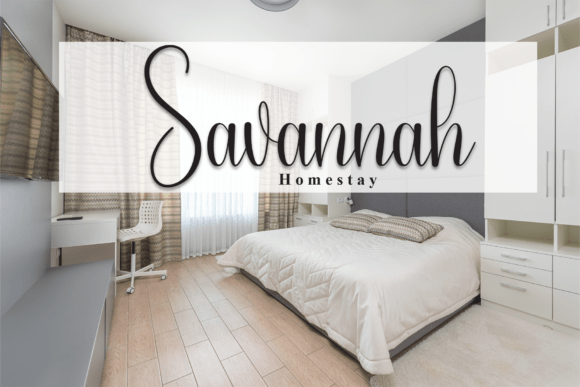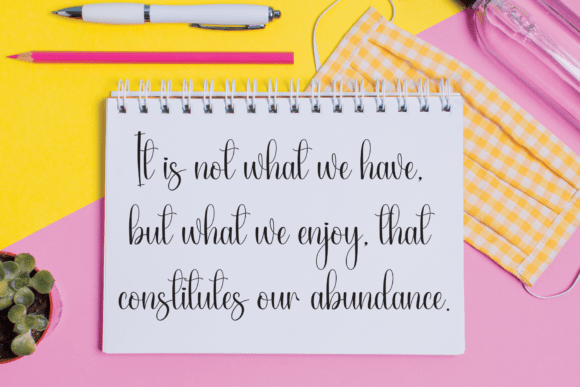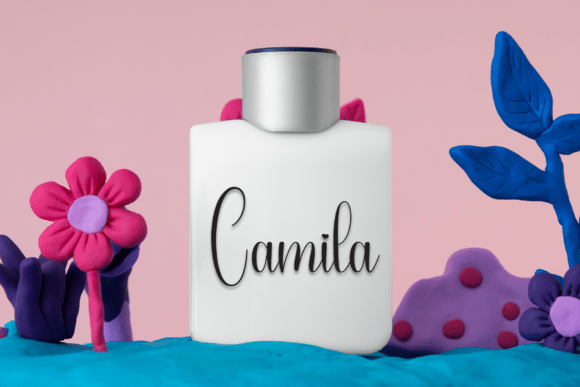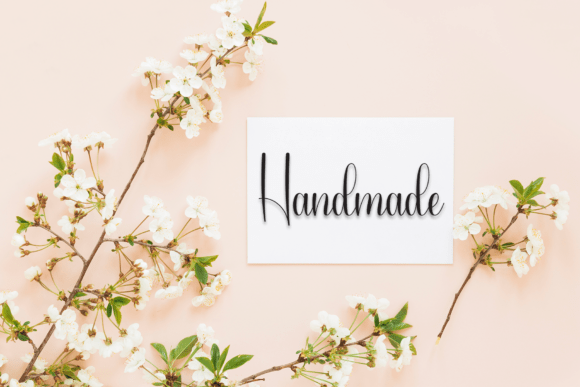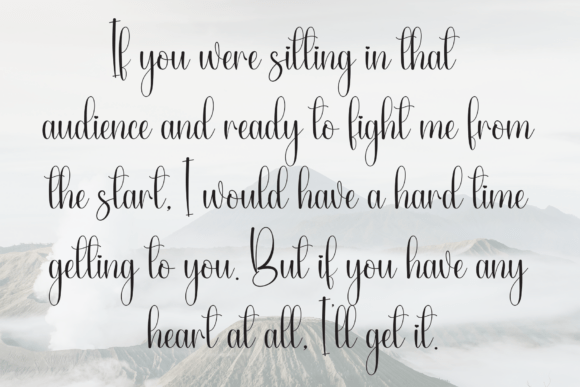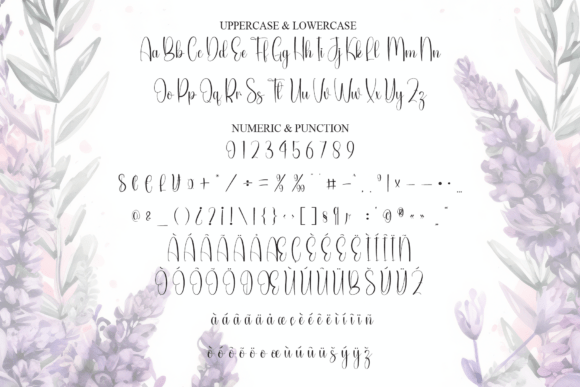
The Perfect Script for Your Next Masterpiece
Have you ever found yourself in the midst of a creative project, frantically searching for the perfect font to bring your vision to life? The blank page stares back, and your imagination runs wild with possibilities. That’s where Beautiful Font comes in – a stylish handwritten script that effortlessly elevates your designs to new heights.
This elegant typeface is designed to add a touch of sophistication and personality to your work, whether it’s a branding project, a wedding invitation, or a creative campaign. With its smooth, flowing strokes and delicate balance of charm and modernity, Beautiful Font is the perfect tool for designers looking to make a lasting impression. Its versatility and timeless charm make it a valuable asset in any designer’s toolkit.
Beautiful Font Key Features
- Unique Character Set: Beautiful Font features a unique character set with over 1,000 glyphs, including extended Latin, Cyrillic, and Greek alphabets, as well as a range of ligatures and ornaments.
- Customizable: Beautiful Font includes a range of OpenType features, including stylistic sets, contextual alternates, and swashes, allowing designers to customize the font to suit their specific needs.
Designer Review: Beautiful Font
Overall, I have mixed feelings about the “Beautiful Font”. It’s a unique and visually appealing font that can add a touch of elegance to any design. ✨ The subtle flair at the ends of the letters and the fluid curves give it a sophisticated look that’s hard to ignore.
- Unique and stylish aesthetic
- Wide range of font sizes and weights
- Good legibility, even at smaller font sizes
- Works well for both digital and print applications
However, there are some limitations that I’ve noticed:
- Some characters, such as punctuation marks, can be difficult to read at small font sizes
- The font can be overwhelming if used in large quantities
- Not as versatile as some other fonts, may not be suitable for all design styles
- May require additional styling to make it work well in certain contexts
Overall, I think the “Beautiful Font” is a solid choice for designers looking to add some flair to their designs. However, it may not be the best fit for every project. ⚠️ With some careful selection and styling, it can be a beautiful addition to your design portfolio.
For optimal results, use Beautiful Font in conjunction with other elegant design elements, such as cursive script or watercolor textures.
Use Beautiful Font for:
– Luxury branding and marketing materials
– Creative digital art and graphics